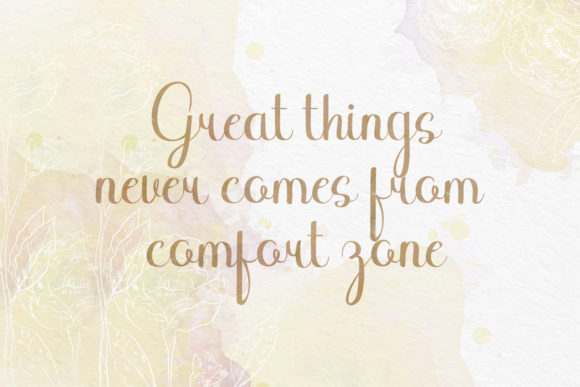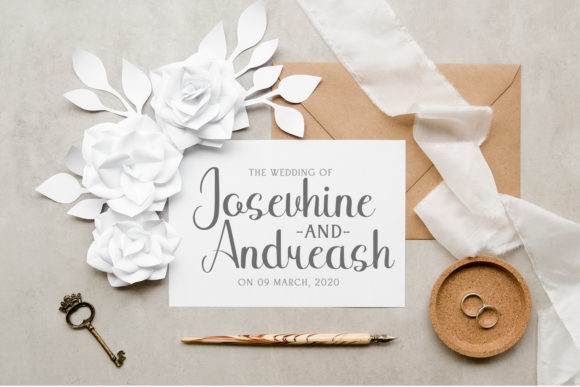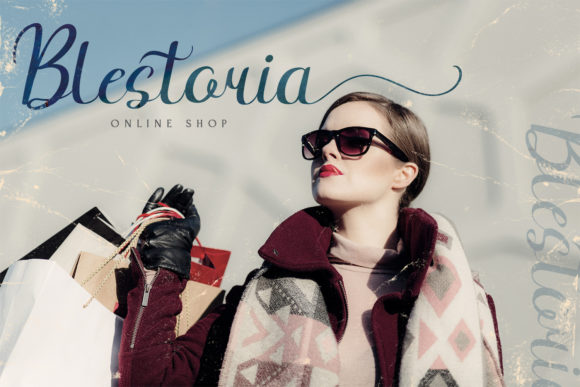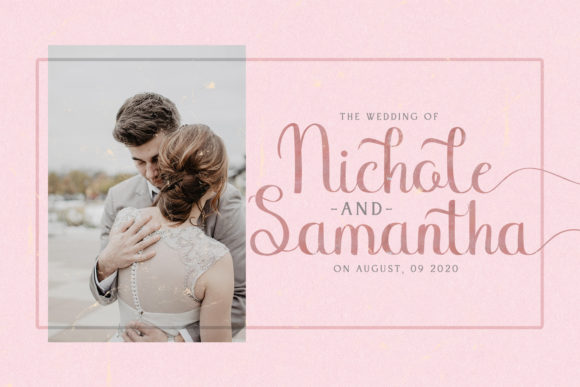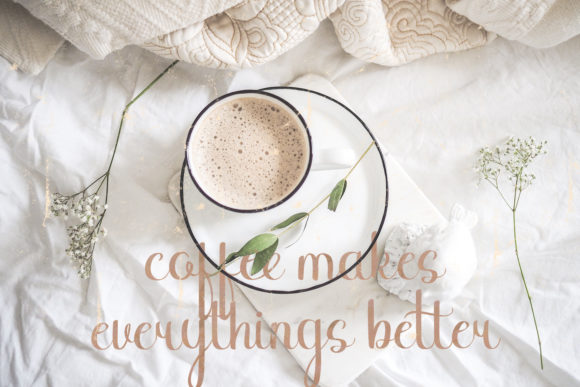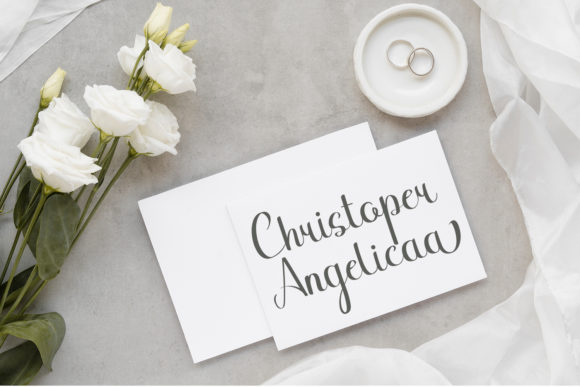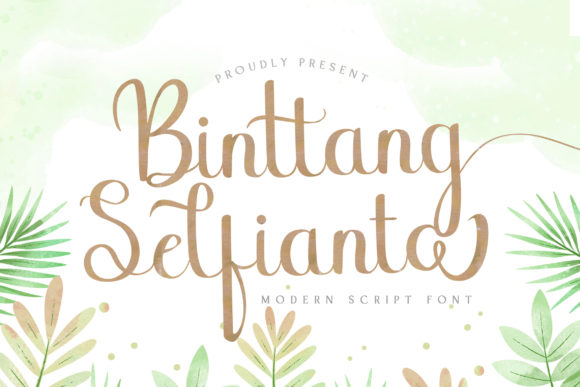
Binttang Selfianto Font: Elevate Your Creative Projects with Elegance
Binttang Selfianto is a beautiful script font that has been making waves in the design community. Whether you’re looking for fonts for calligraphy scripts for DIY projects, Binttang Selfianto will turn any creative idea into a true piece of art! In this article, we’ll dive into the world of Binttang Selfianto, exploring its features, benefits, and uses, and why it’s a must-have for designers and crafters alike.
What is Binttang Selfianto Font?
Binttang Selfianto is a stunning script font that boasts elegant and flowing lines, perfect for adding a touch of sophistication to any design project. Its unique and artistic style makes it an excellent choice for a wide range of applications, from handmade cards and invitations to craft projects and digital designs.
Key Features of Binttang Selfianto Font
• Elegant Script Style: Binttang Selfianto features a beautiful script style with flowing lines and curves, perfect for creating eye-catching designs.
• High-Quality Design: The font is designed with high-quality craftsmanship, ensuring that it looks great in both digital and print formats.
• Easy to Read: Despite its elegant style, Binttang Selfianto is easy to read, making it perfect for use in a variety of applications, from titles and headings to body text.
• Versatile: Binttang Selfianto can be used for a wide range of projects, from DIY crafts and handmade cards to digital designs and commercial projects.
Benefits of Using Binttang Selfianto Font
So, why should you choose Binttang Selfianto for your next project? Here are just a few benefits of using this amazing script font:
• Adds Elegance to Your Designs: Binttang Selfianto adds a touch of elegance and sophistication to any design project, making it perfect for special occasions and events.
• Enhances Creativity: With its unique and artistic style, Binttang Selfianto inspires creativity and can help you think outside the box when it comes to your designs.
Uses of Binttang Selfianto Font
Binttang Selfianto is a versatile font that can be used for a wide range of projects, including:
• DIY Crafts and Handmade Cards: Add a personal touch to your handmade cards and DIY crafts with Binttang Selfianto.
• Invitations and Announcements: Make your invitations and announcements stand out with the elegant style of Binttang Selfianto.
• Digital Designs: Use Binttang Selfianto in your digital designs, such as social media graphics, blog posts, and website headers.
• Commercial Projects: Binttang Selfianto is perfect for commercial projects, such as branding, packaging, and advertising.
Tips for Using Binttang Selfianto Font
Here are a few tips for getting the most out of Binttang Selfianto:
• Experiment with Different Sizes and Colors: Play around with different sizes and colors to find the perfect combination for your design.
• Pair with Other Fonts: Binttang Selfianto pairs well with other fonts, so don’t be afraid to experiment with different font combinations.
• Use for Titles and Headings: Binttang Selfianto is perfect for titles and headings, adding a touch of elegance to your designs.
In conclusion, Binttang Selfianto is a beautiful script font that is perfect for designers and crafters looking to add a touch of elegance to their projects. With its elegant style, high-quality design, and versatility, Binttang Selfianto is a must-have for anyone looking to take their designs to the next level. Whether you’re working on a DIY craft project or a commercial design, Binttang Selfianto is sure to impress.